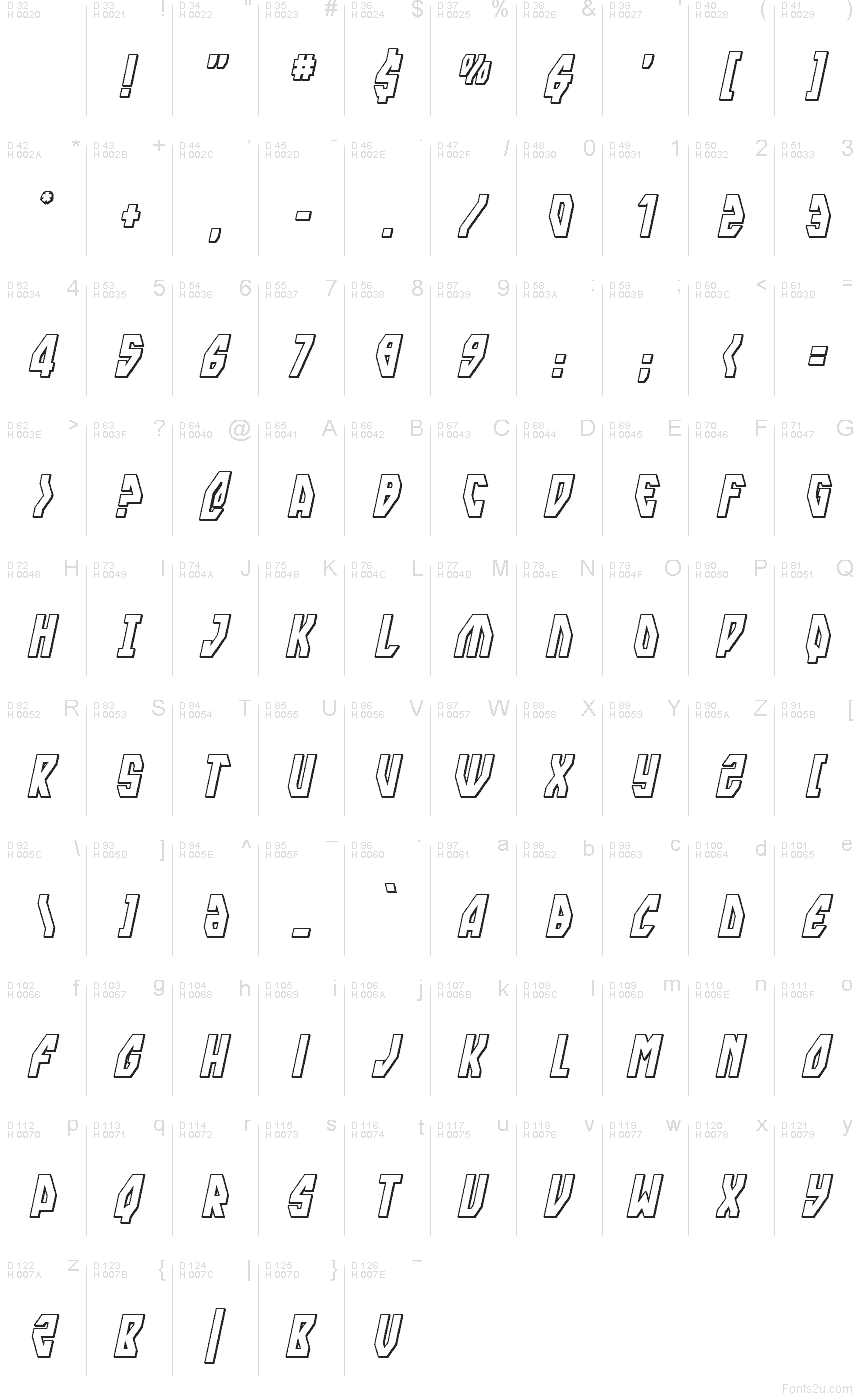
Skyrange 3D Super-Italic font by Daniel Zadorozny of Iconian Fonts is a free techno font, and the Skyrange 3D typeface brings instant velocity to a layout. Its extreme slant, crisp cut-ins, and hollow, bevel-like outline read like chrome lettering lit from the side-sharp, loud, and aerodynamic. Even at a glance, it feels like motion blur without the mess.
Using Skyrange 3D Super-Italic, you’ll get bold traction on game titles, sci‑fi posters, racing graphics, esports branding, YouTube thumbnails, tech event promos, and futuristic packaging. Keep it large so the inner counters stay clean, and pair it with a plain grotesk sans for body copy to let this free font do the shouting.